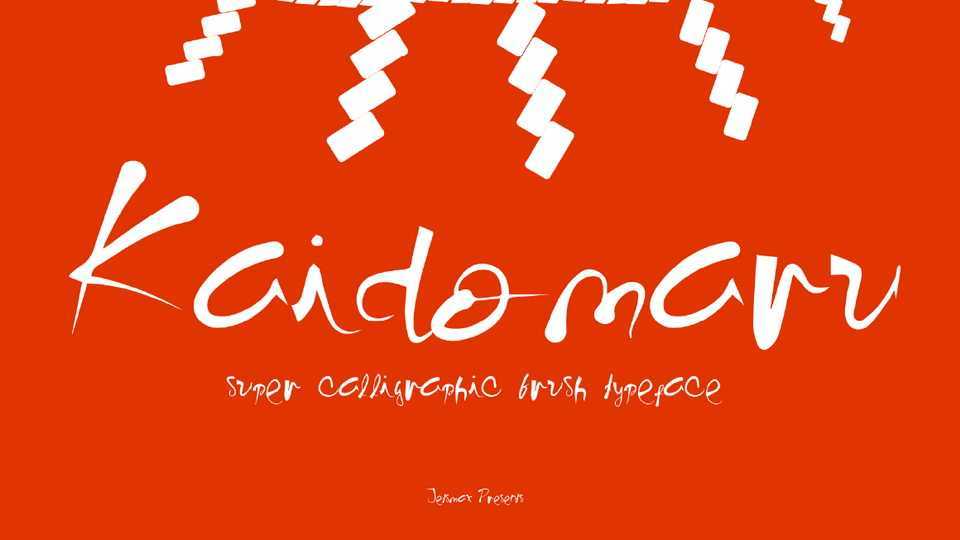
Download Kaidomaru font, a handwritten typeface inspired by the authenticity of festivals in Asian culture. This brush type of font will give a thrilling sensation to your design projects.
Designer: Jetsmax Studio